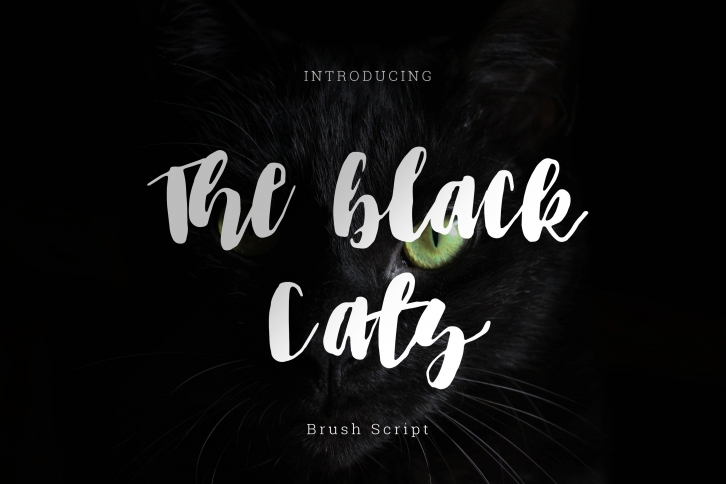
The black cats brush Script is a gorgeous font that was realeased on June 15, 2020. The font can be used in many style contexts and design environments. Perfect for invitations, magazines, websites, logos, and more! It was designed by Dangglem Studio and the file size is 2.45 MB. Thanks for checking out this font!